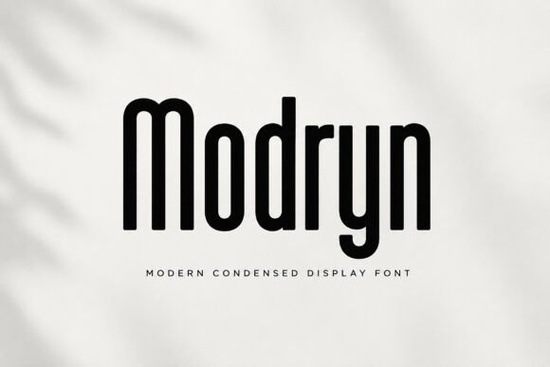
Modryn Font is a standout choice for designers who need a clean, modern, and impactful typeface. This bold, condensed display font is ideal for creating eye-catching headlines, logos, and branding materials. Its tall letterforms and sleek structure make it perfect for situations where space is limited but visual presence is key. Whether you're working on a luxury brand, a fashion magazine, or a social media campaign, Modryn offers a professional and sophisticated look that stands out.
One of the main advantages of Modryn Font is its versatility. It works well in a variety of design contexts, from editorial layouts to packaging and posters. The font’s clean lines and contemporary aesthetic ensure that it remains readable even at smaller sizes, making it a reliable option for both digital and print projects. Its condensed structure also allows for more text in a given space, which can be especially useful when designing for mobile screens or limited physical areas like product labels or banners.
What Makes Modryn Font Unique?
Modryn Font distinguishes itself through its strong visual impact and modern appeal. Unlike many other display fonts that may sacrifice readability for style, Modryn manages to maintain clarity while still delivering a bold, distinctive look. This balance makes it a go-to choice for designers who want to create something that grabs attention without being hard to read.
The font’s tall letterforms give it a sense of height and elegance, which can be particularly effective in logo design or headline typography. Its minimalist approach ensures that it doesn’t overpower other elements in a composition, allowing it to blend seamlessly with other design components. This makes Modryn Font a great addition to any designer’s toolkit, especially when working on projects that require a polished and modern feel.
Best Uses for Modryn Font
Modryn Font is most commonly used in design projects that require a strong visual statement. Here are some of the best scenarios where this font shines:
- Headlines and Titles: Use Modryn for blog post titles, magazine covers, or website headers to create a striking first impression.
- Logos and Branding: Its bold and modern style makes it an excellent choice for creating unique and memorable brand identities.
- Posters and Banners: The font’s condensed structure helps fit more text into compact spaces, making it ideal for event posters, advertisements, and digital banners.
- Packaging Design: Modryn adds a premium look to product packaging, especially for fashion, beauty, or lifestyle brands.
How to Use Modryn Font Effectively
To get the most out of Modryn Font, consider pairing it with complementary typefaces. For example, using a simpler sans-serif font for body text can help balance the boldness of Modryn in headings or titles. This contrast creates a more dynamic and visually appealing layout.
Another tip is to experiment with different weights and sizes. While the bold version of Modryn is perfect for headlines, lighter variations can work well for subheadings or captions. Always test the font in your specific design context to ensure it meets your needs in terms of readability and aesthetics.